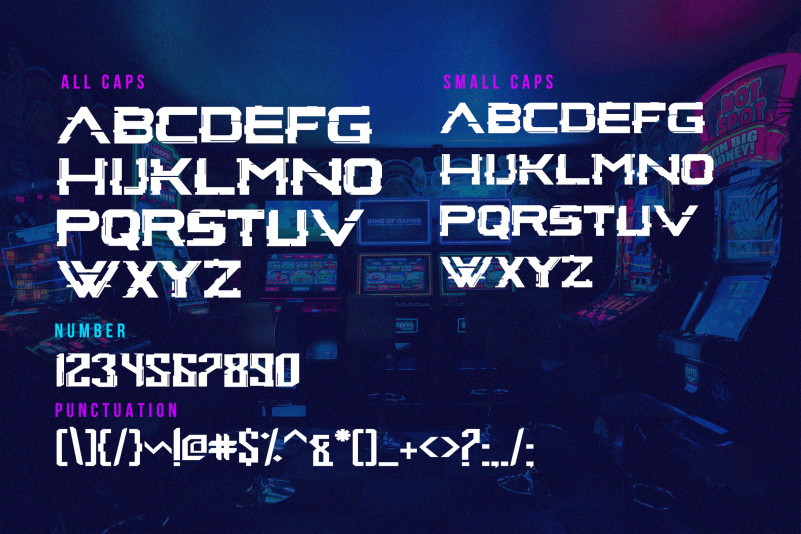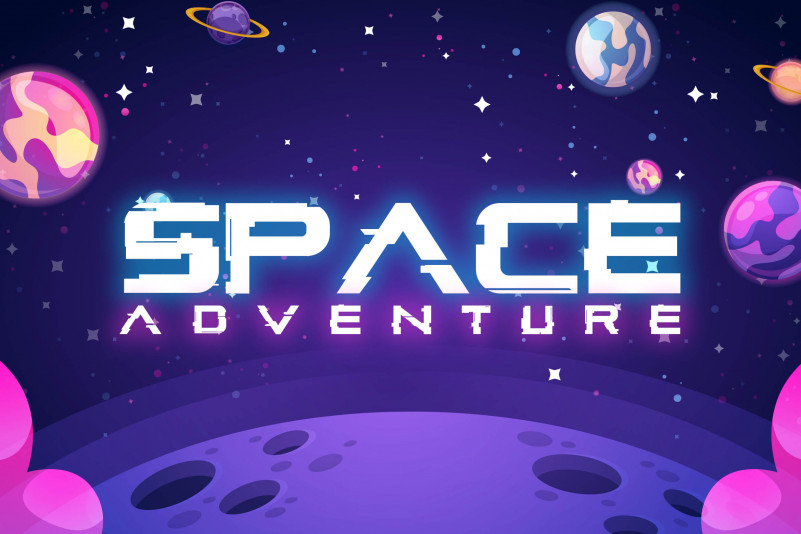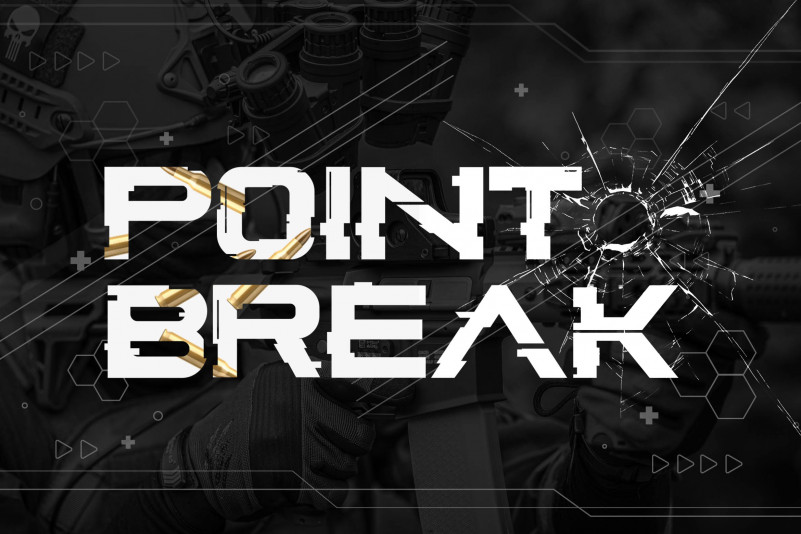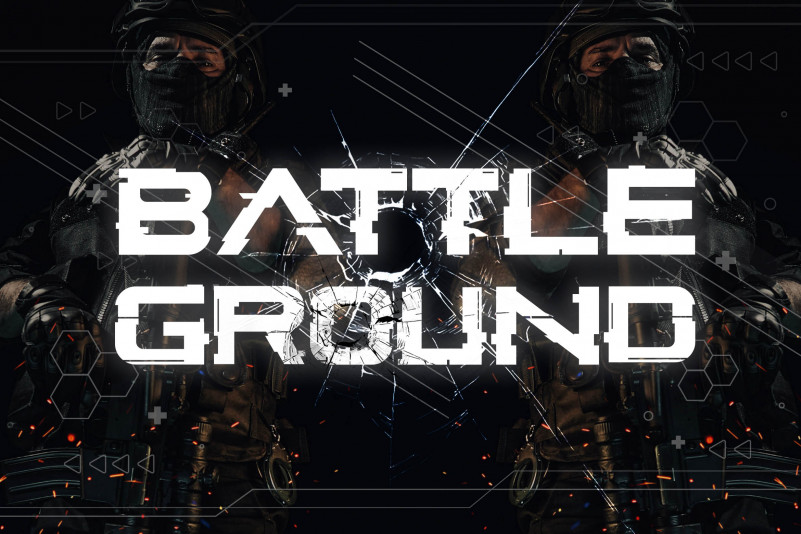
GLITCH INSIDE Font
Glitch Inside Display Font
This font is perfect for Gaming headline, sports logo, Film with techno themes or brosur party even games with galaxy adventure themes